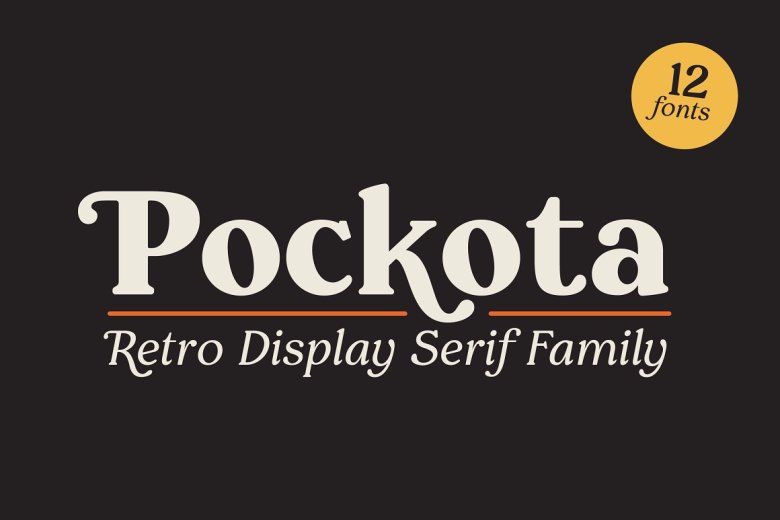
Pockota Font
Pockota – a retro, soft display serif typeface available with 12 fonts. Starting from light to black, along with its matching italics, Pockota opens, limitless possibilities to be implemented in various graphic or editorial projects. The lighter font-weights are great for body text, while the heavier ones are perfect for eye-catching headlines.
Another aspect that could be an advantage for this typeface is the several stylistic sets and swashes that you can use just by activating the OpenType features that is built-in. For those of you who are wondering what languages are supported, this typeface contains an extended latin character set so that Pockota supports 200+ latin-based languages.
Pockota is that kind of typeface that will never go out of fashion and you would love it suitable for display purposes as branding, editorial, headlines, and packaging.
Pockota Serif Typeface